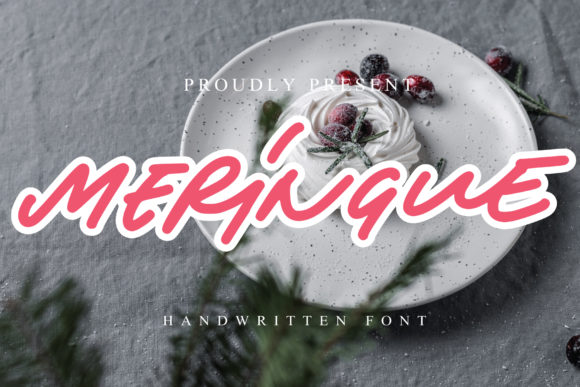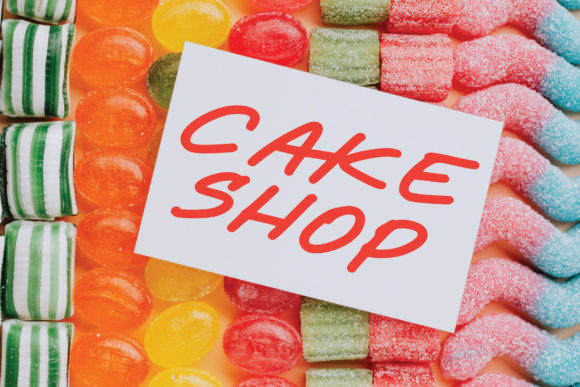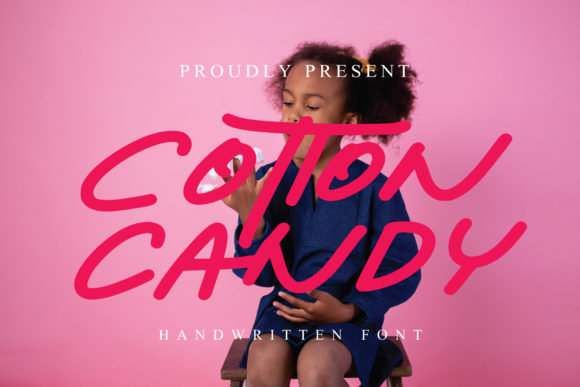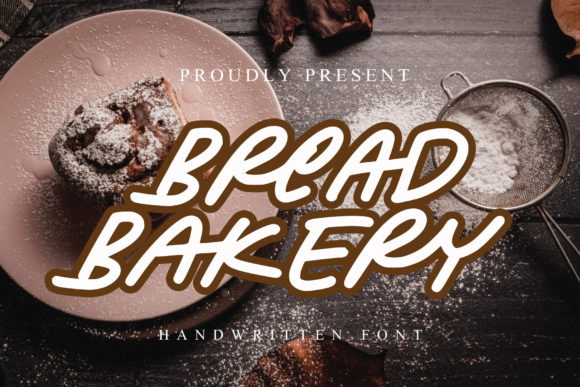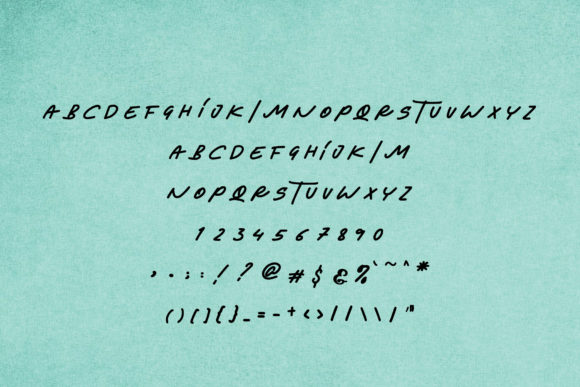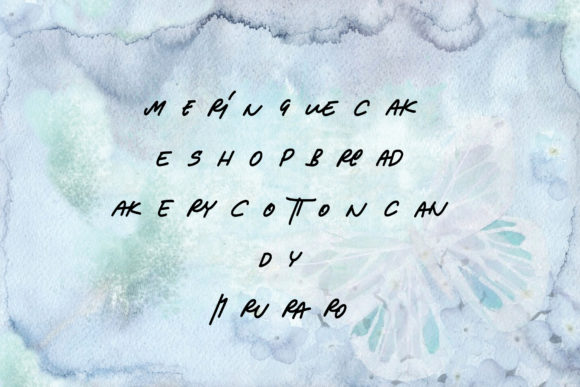
Meringue Font
About Meringue Font
“Meringue” sounds like a delightful and friendly handwritten font that has the potential to breathe life into your creative ideas. With its warm and approachable style, this font can add a touch of charm and personality to a wide range of design projects.
When you incorporate Meringue into your designs, you’ll notice how it brings a sense of playfulness and joy, making your creations stand out and leaving a positive impact on viewers. Whether you’re working on invitations, posters, social media graphics, branding materials, or any other design project, this font can infuse your work with a sense of lightheartedness and warmth.
One of the key advantages of Meringue being PUA encoded is the easy access it provides to all the glyphs and swashes. This gives you the creative freedom to explore various stylistic alternates, ligatures, and decorative elements, allowing you to customize the typography to match your vision and enhance the overall design aesthetic.
Using Meringue in your designs can create a personal connection with your audience. Its handwritten nature can evoke a feeling of authenticity, as if the message is coming directly from a friendly source. This can be particularly impactful for projects such as greeting cards, quotes, and personal messages.
For business-related designs, Meringue can add a human touch to logos, business cards, and promotional materials, helping to create a relatable and approachable brand image.
While experimenting with Meringue’s features, remember to maintain readability and balance in your designs. Proper kerning and spacing are essential to ensure that the text remains legible and easy to comprehend.
In conclusion, Meringue is a wonderful handwritten font that has the power to breathe life into your creative ideas. Its friendly and welcoming style can enhance various design projects and leave a lasting impression on your audience. With the convenience of PUA encoding, you have the opportunity to explore and utilize the font’s various glyphs and swashes to make your designs truly unique and captivating. Embrace the charm of Meringue and let it be the heart of your creative expressions!